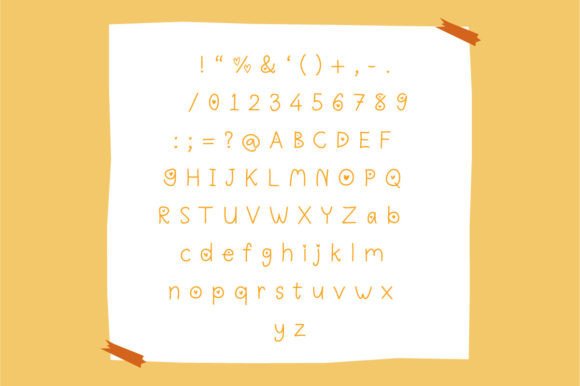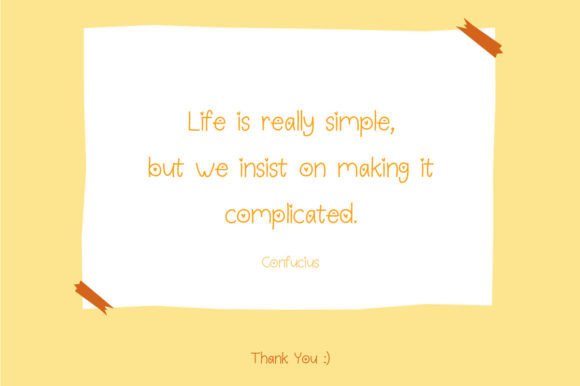
Lovely Little Font
About Lovely Little Font
Introducing “Lovely Little” – The Sweet and Adorable Handwritten Font with Heartfelt Charm!
**”Lovely Little”** isn’t just another font; it’s a charming and adorable handwritten typeface designed to bring a touch of love and cuteness to your projects. With delightful little hearts adorning some of the letters, this font is perfect for any design that requires a cute and lovable appearance.
With **”Lovely Little,”** you’ll discover a font that’s full of heartfelt charm. Its sweet handwritten style, combined with those endearing little hearts, adds a unique and adorable quality to your text. Whether you’re working on greeting cards, invitations, scrapbooking, branding, or any creative endeavor, “Lovely Little” will infuse your designs with love.
Imagine using **”Lovely Little”** to create heartwarming greeting cards that express your affection, crafting invitations that radiate charm and cuteness, adding a loving touch to your scrapbook layouts, giving your branding a delightful and memorable twist, or simply using it in any project where a dose of lovable character is needed.
Whether you’re a creative soul looking to add a sweet and endearing touch to your designs or someone who wants to spread love through their projects, **”Lovely Little”** is the font that will warm hearts and bring smiles.